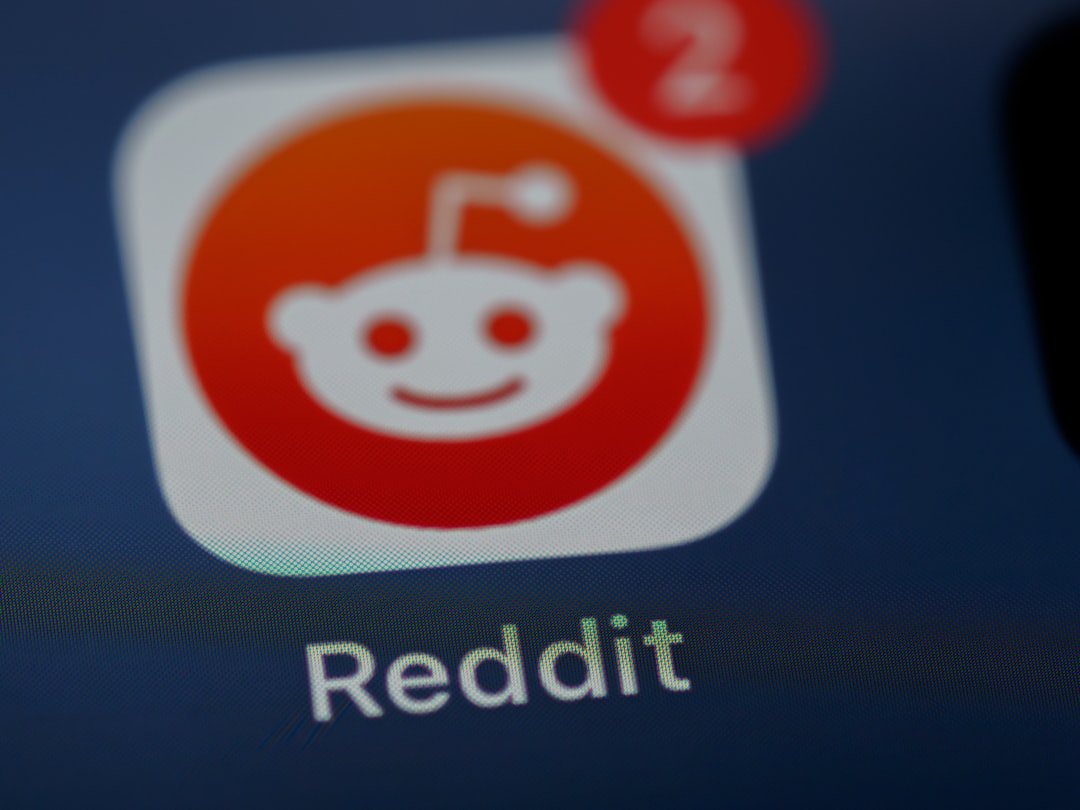
What Font Does Reddit Use? (2026)
What Font Does Reddit Use?
Quick answerThe Reddit font is a custom brand typeface introduced with the 2023 rebrand, paired with the redrawn Snoo mascot. The wordmark is bespoke lettering, and the app and web UI historically leaned on Verdana, Noto Sans and platform system fonts. Both the brand face and wordmark are proprietary; for a similar friendly look, use a free humanist sans like Inter or Open Sans.
The Reddit font question has two answers: the custom brand typeface and wordmark rolled out in Reddit’s 2023 identity refresh, and the more utilitarian fonts that have rendered the site’s dense, text-heavy interface over the years. The headline lettering is bespoke, while the reading experience has long relied on Verdana, Noto Sans and system fonts. Below we break down the logo, the UI, and the free alternatives. For more breakdowns like this, see our hub on famous brand fonts.
What font is the Reddit logo?
Since the 2023 rebrand, the “reddit” wordmark is set in custom brand lettering — a rounded, friendly lowercase sans designed in-house to sit alongside the refreshed Snoo mascot. The letterforms are geometric but soft, with open apertures and gently rounded terminals that match Snoo’s approachable personality. Earlier versions of the wordmark used simpler, more generic sans-serif lettering, but the current mark is bespoke and trademarked, so it is best described as a custom face rather than a single licensable font. As with most platform logos, you cannot download the exact wordmark.
What font does Reddit use in its app and UI?
Reddit’s interface has historically prioritized legibility for long threads of small body text over a distinctive brand voice. For years the desktop site rendered content in Verdana — Matthew Carter’s screen-optimized sans with a tall x-height and wide spacing that holds up at small sizes. Newer web and app surfaces lean on Noto Sans and on native system font stacks: San Francisco on iOS, Roboto on Android, and the system UI font on other platforms. Reddit’s 2023 brand system also added a custom sans for headings and marketing surfaces. The practical takeaway: Reddit favors highly readable, widely available sans-serifs for the dense reading experience and reserves the custom face for branding.
Why does Reddit use these fonts?
Reddit is one of the most text-dense platforms on the web, so its core font choices are driven by readability, not flourish. Faces like Verdana and Noto Sans were engineered for screen legibility, with generous spacing and large x-heights that keep small comment text clear. Using system fonts also makes pages load faster and feel native on each device. The custom brand face, by contrast, exists to give Reddit a recognizable, friendly identity in logos and marketing — warmth that the workhorse UI fonts do not provide. This two-track approach is deliberate: a platform built almost entirely on user-generated text cannot afford to gamble its readability on a stylish but hard-to-read display face, so the personality lives in the branding while the reading surface stays as plain and legible as possible. Verdana in particular earned its place because Matthew Carter engineered it for exactly this job — small text on low-resolution screens — long before high-density displays were common. Our font licensing guide explains why platforms commission custom faces rather than reuse off-the-shelf ones for branding.
Free fonts that look like the Reddit font
You cannot use Reddit’s custom face, but several free, high-quality sans-serifs capture the same clean, approachable feel. Match the role: a friendly geometric sans for a wordmark look, a readable humanist sans for body and UI.
Use case Reddit uses Free alternative
Logo / wordmark look Custom brand sans (rounded) Nunito Sans (free)
UI body / comments Verdana / Noto Sans / system Inter (free)
Highly readable body Verdana Open Sans (free)
Open-source match Noto Sans (free)
Inter is the best all-purpose free match for Reddit’s UI — a humanist sans with a high x-height and excellent screen rendering, designed specifically for interfaces. Open Sans offers a similarly clean, neutral body voice, and Nunito Sans captures the softer, rounded feel of the current brand lettering for a wordmark look. All are free on Google Fonts for commercial use. Read our deep dive on the Inter font for why it dominates modern UI work.
How to recreate the Reddit look
Reddit’s identity is friendly, functional, and unpretentious — its typography should be too. For a Reddit-style brand mark, set a lowercase wordmark in a soft geometric sans like Nunito Sans, keeping the spacing tight and the terminals rounded to echo Snoo’s warmth. For the actual interface, prioritize a screen-first humanist sans such as Inter or Open Sans at a comfortable size with generous line height, since most of Reddit’s surface area is small body text. Keep the palette anchored by Reddit’s signature orange-red, let the type stay quiet, and let the mascot and content carry the personality. For more platform breakdowns, see our siblings on what font Discord uses and what font Pinterest uses.
What font does Reddit use in its logo?
Since its 2023 rebrand, Reddit uses a custom, in-house brand typeface for the lowercase “reddit” wordmark — a rounded, friendly geometric sans designed to match the refreshed Snoo mascot. The wordmark is bespoke, trademarked artwork rather than a single downloadable font.
What font does the Reddit app use?
Reddit’s app and web UI rely mainly on highly readable sans-serifs: historically Verdana on desktop, plus Noto Sans and native system fonts (San Francisco on iOS, Roboto on Android). These prioritize legibility for dense comment threads over brand flair.
Can I download the Reddit font?
No. Reddit’s custom brand typeface and wordmark are proprietary, trademarked assets and are not available to download. Any “Reddit font” on a free-font site is an unofficial imitation. For a similar look, use a free humanist sans like Inter, Open Sans, or Nunito Sans.
What free font looks like Reddit’s?
Inter is the closest free match for Reddit’s UI — a humanist sans built for screens with a high x-height. Open Sans is a strong readable alternative, and Nunito Sans captures the rounded warmth of the current brand lettering. All are free on Google Fonts for commercial use.
Did Reddit change its font in the rebrand?
Yes. Reddit’s 2023 identity refresh introduced a custom brand typeface and a redrawn, softer wordmark alongside an updated Snoo mascot. The underlying UI still leans on readable workhorse fonts like Verdana, Noto Sans, and platform system fonts for body content.